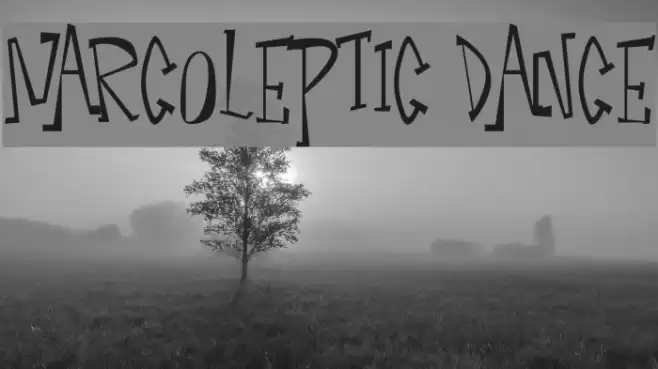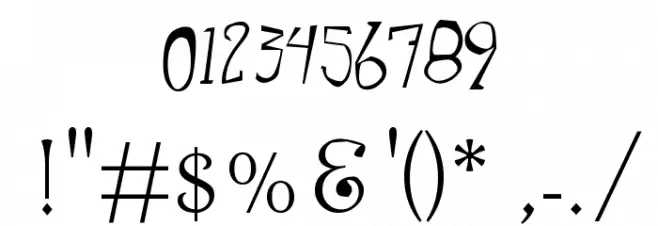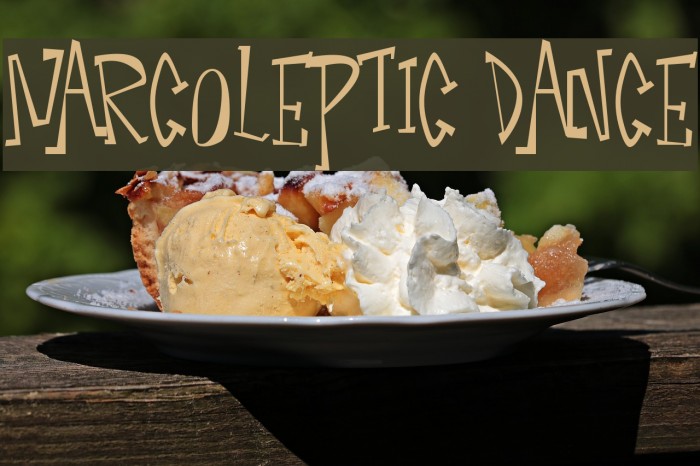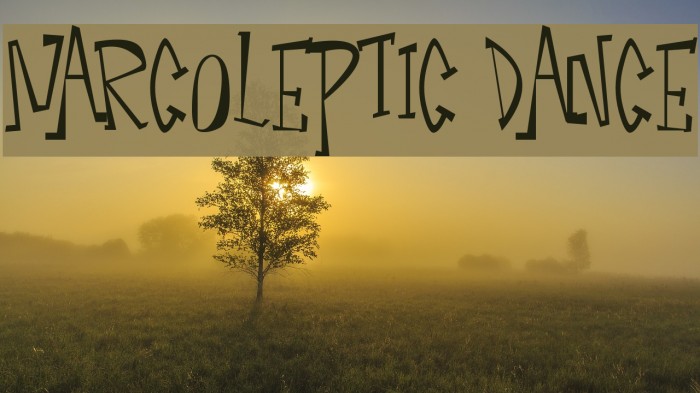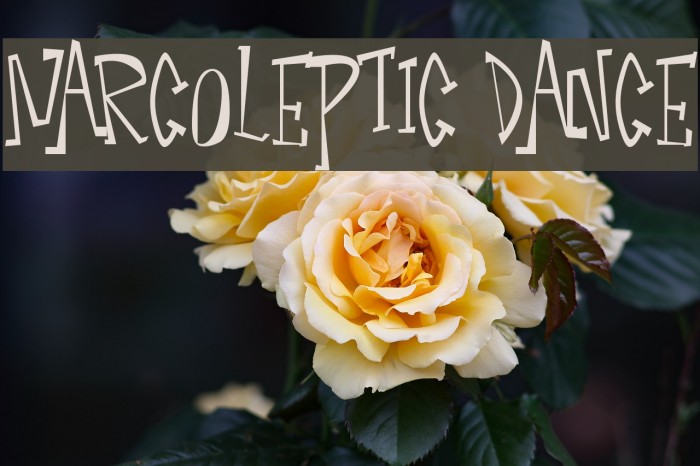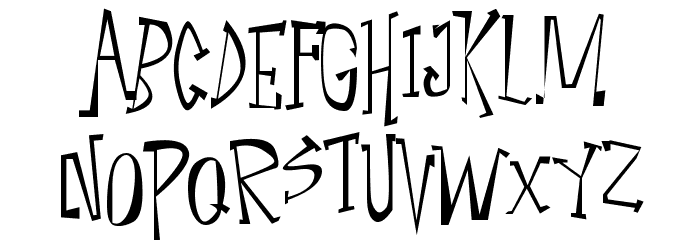
Narcoleptic Dance Font
Narcoleptic Dance Description
This font features a playful and quirky design with exaggerated, uneven strokes and a hand-drawn appearance. The letters are tall and narrow, with varying angles and a whimsical flair that adds a sense of movement and energy. The uppercase and lowercase characters maintain a consistent style, while the numerals and special characters complement the overall aesthetic. The font's irregularity and dynamic shapes make it stand out, offering a unique and artistic look that is both modern and expressive.
A playful, hand-drawn font with exaggerated, uneven strokes and a whimsical flair from Cartoon fonts.
- Proposed Projects: Ideal for creative projects such as children's books, playful branding, posters, and artistic invitations.